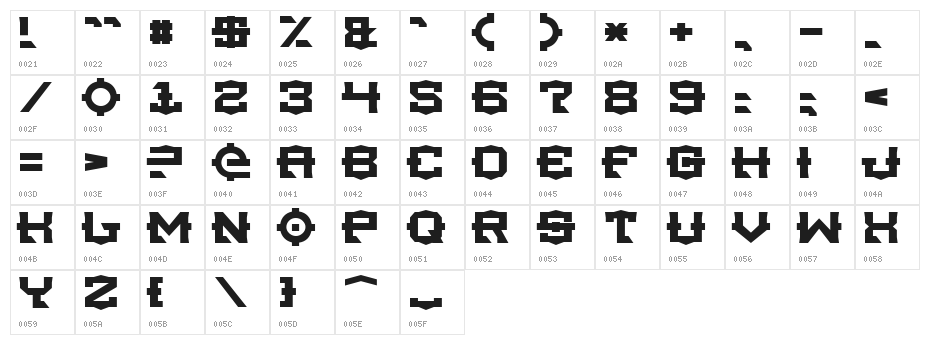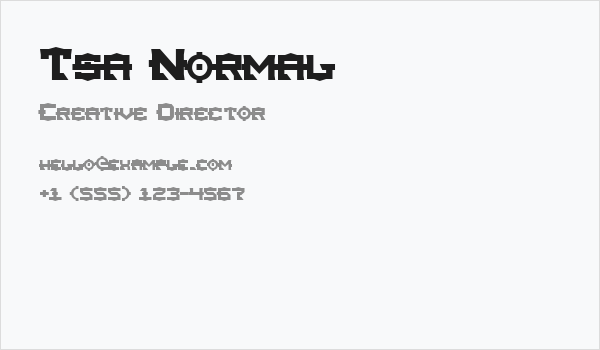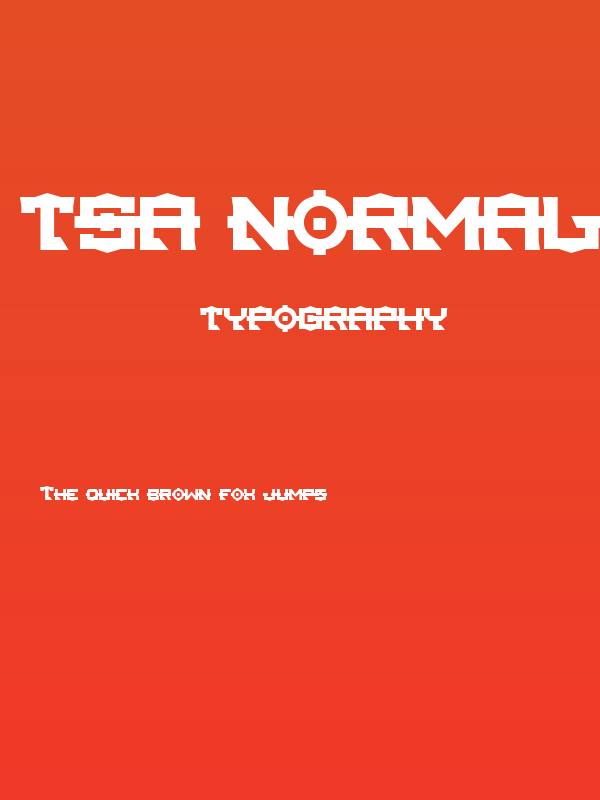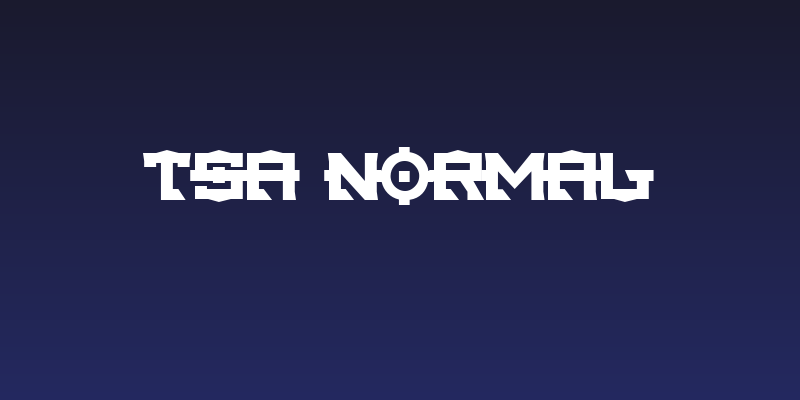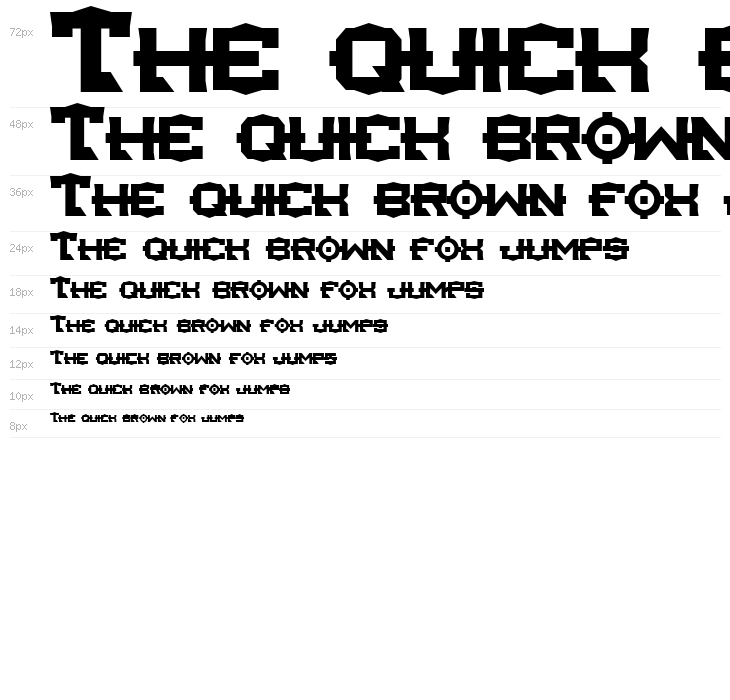
Tsa Normal Font
Tsa Normal Description
This font exhibits a bold, geometric design with a futuristic and industrial aesthetic. The characters are constructed with sharp angles and thick lines, creating a sense of strength and modernity. The uppercase and lowercase letters maintain a consistent style, emphasizing uniformity and cohesion. The numbers and special characters follow the same design principles, ensuring a seamless visual experience. This font is ideal for projects that require a bold statement and a modern edge.
| Proposed Projects | Ideal for branding, posters, video game titles, and tech-themed designs. |